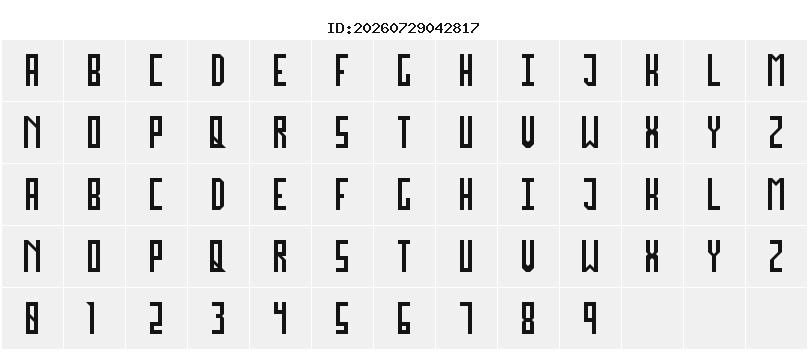
Jocko Mongo Preview
• Font Name: Jocko Mongo
• Full Font Name: Jocko Mongo
• Designer: candycoatedkafka
• Description: ‚ÄúJacko Mongo‚Äù was built with FontStruct
About Jocko Mongo.ttf
Jocko Mongo.ttf is a modern, elegant sans-serif font designed for ultimate readability and visual harmony. Perfect for branding, headlines, web design, and print materials.